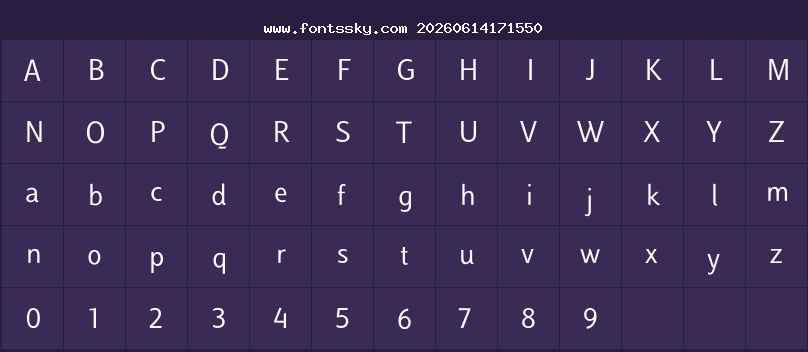
• Font Name: Luiss Sans
• Full Font Name: Luiss Sans Regular
• Designer: Antonio Pace/RML Types
• Manufacturer: RML Types
About Luiss Sans.otf
Luiss Sans.otf is a modern, elegant sans-serif font designed for ultimate readability and visual harmony. Perfect for branding, headlines, web design, and print materials.